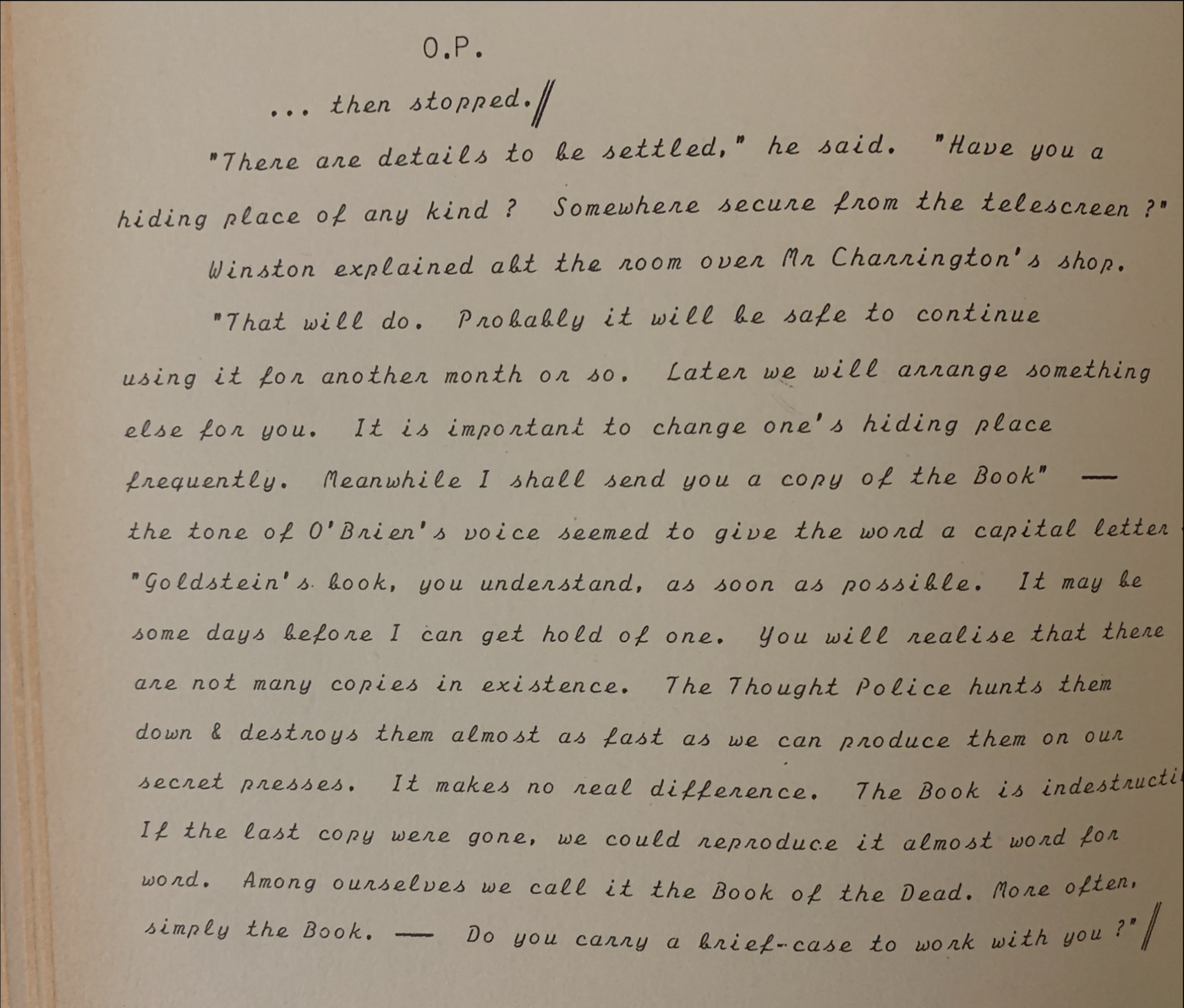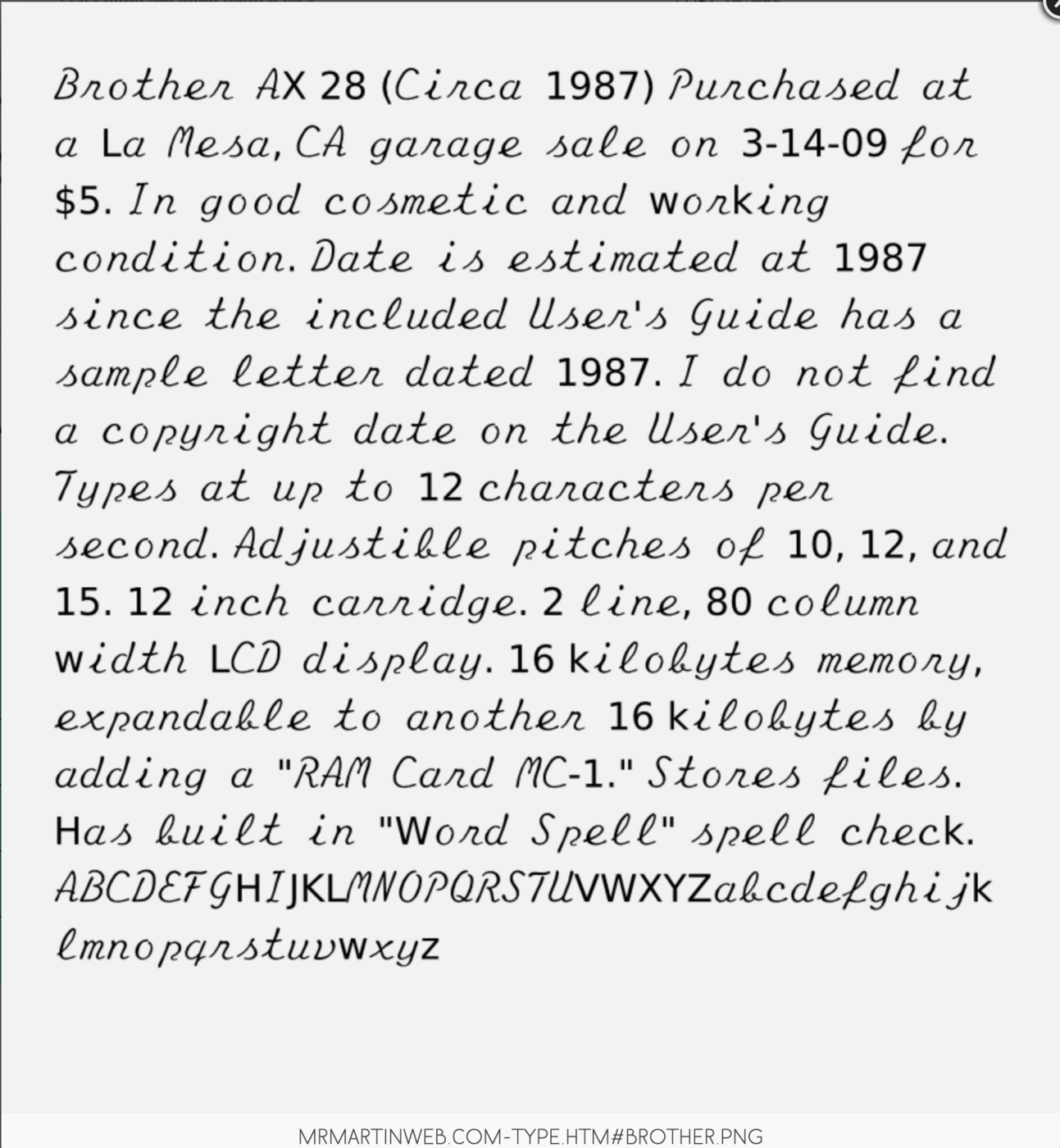
Looking to identify the typewriter font used in the facsimile of George Orwell's "Nineteen Eighty-Four"
Hi, I'm trying to identify the cursive font used on this page. This page comes from the Harcourt Brace Jorvanovich, Publishers & M & S Press release of the Facsimile of George Orwell's "Nineteen Eighty-Four, Published in Italy, Copyright 1984. From my own attempts to identify the font, I first believed it was a Olympia Script Font (SM8 or SM9), however letters such as the capital P (at times anyway) and lowercase e do not match the font used on this page, so I am at a loss. Ideally I would like to find a digital version of the font if at all possible, but a nice looking alternative is acceptable as well.
I also found another digital version called AX-28 Script, but annoyingly the original source is not cited. I have a rougher version of the same face called Louis Medium in my font collection, which I got from the same site, but it is no longer listed in their catalog.
The designer for both is listed as Ludi Loiseau, one of the founders of Open Source Publishing.
EDIT: I didn’t dig far enough into the posted images on the site (see below)—the source of the lettering appears to be a Brother AX 28 typewriter from the 1980s.